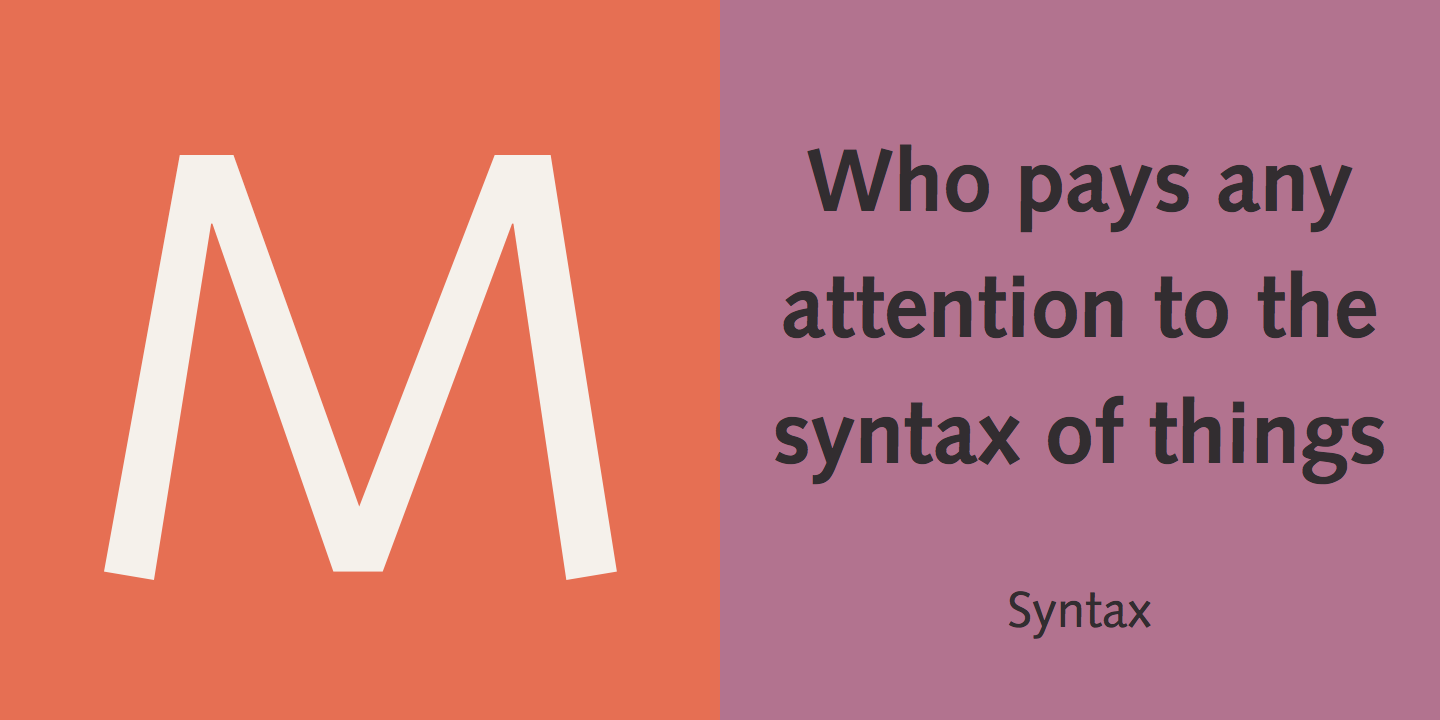
Syntax Font is perfect for corporate communications, technical documentation, wayfinding systems, architectural signage, editorial design, annual reports, user interfaces, and professional presentations.
What makes Syntax Font exciting is its unique humanist design that combines geometric precision with organic warmth, creating exceptional readability without sacrificing character. This innovative sans-serif typeface features subtly modulated strokes and carefully crafted letterforms that ensure optimal legibility across all sizes while maintaining a distinctive personality that sets it apart from conventional corporate fonts.
The Syntax Font family includes Light, Regular, Medium, Bold, and Black weights, each available in roman and italic variations, providing comprehensive typographic flexibility while preserving the characteristic humanist qualities and professional elegance.
Syntax Font Free Download provides access to a masterfully crafted typeface that bridges technical precision with human-centered design. This versatile font excels in complex information environments where clarity is essential, making it ideal for multilingual applications and extensive text setting. The font's balanced proportions and refined details ensure consistent performance across print and digital media while its distinctive character adds sophistication to corporate identities and editorial projects. Whether designing international signage systems, comprehensive brand guidelines, or detailed technical manuals, this font delivers reliable performance with its thoughtful construction and proven track record in demanding professional applications that require both functionality and aesthetic excellence.